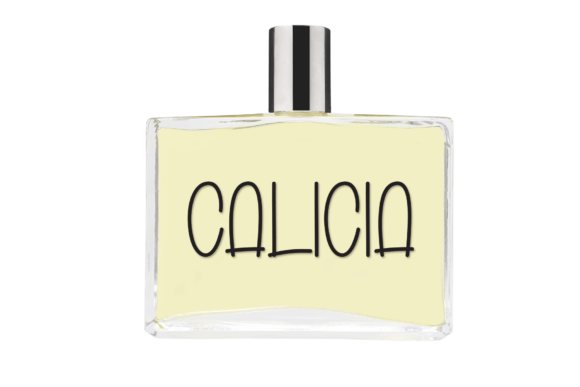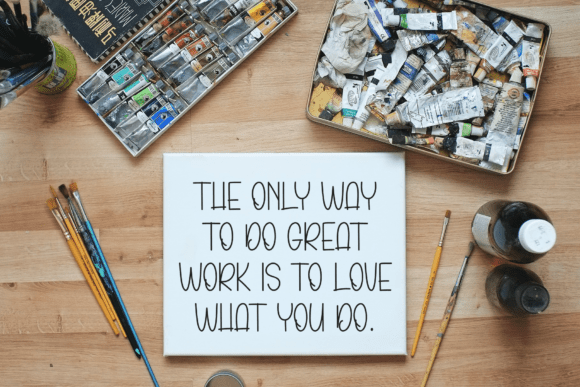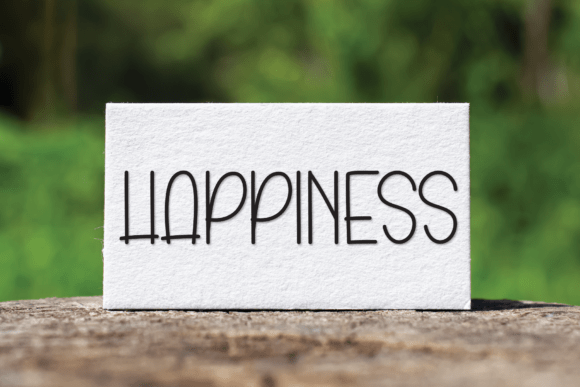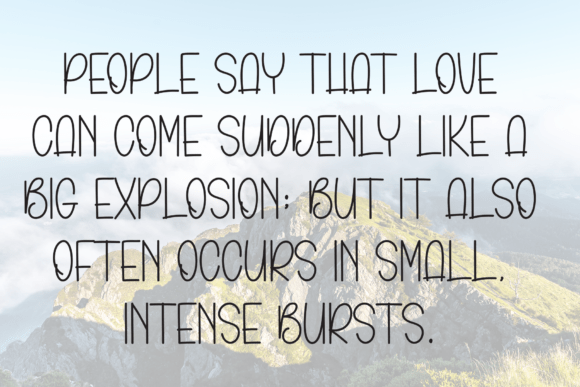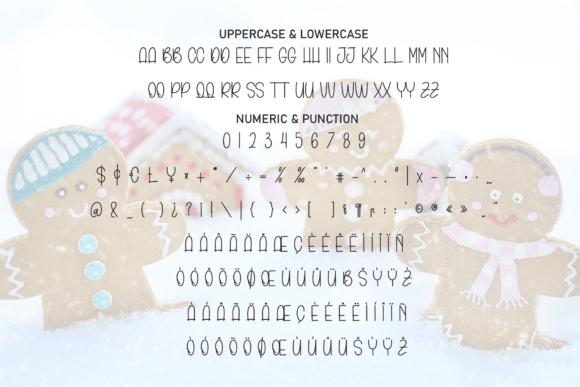
Gingger Bread Font: A Deliciously Modern Twist on Festive Typography
As the holiday season approaches, designers and crafters are on the lookout for the perfect typography to add a touch of festive cheer to their projects. Look no further than the Gingger Bread font, a charming and whimsical monolinear font that reimagines traditional holiday typography with a clean, modern twist.
A Fresh Take on Classic Holiday Typography
Gingger Bread’s unique personality comes from its slightly irregular, hand-drawn alignment and large, open counters, which evoke the neat yet organic look of icing on a holiday cookie. The typeface features tall, slender letterforms with smooth, rounded character joins and consistent stroke weights, giving it a modern and sophisticated feel.
One of the standout features of Gingger Bread is its monolinear design, which means that the font has a consistent stroke width throughout. This gives the font a sleek and streamlined look that’s perfect for use in a variety of applications, from seasonal bakery branding to winter event invitations.
Perfect for Festive Projects
Gingger Bread is a premier choice for designers and crafters looking to add a touch of festive fun to their projects. Here are just a few ideas for how you can use this delightful font:
- Seasonal bakery branding: Use Gingger Bread to create eye-catching labels, packaging, and marketing materials for your bakery or food business.
- Winter event invitations: Add a touch of festive flair to your wedding invitations, holiday party invites, or New Year’s Eve celebrations.
- Festive social media headers: Stand out on social media with Gingger Bread’s cheerful and eye-catching design.
- Cheerful holiday marketing: Use Gingger Bread to create festive ads, flyers, and brochures that will put your customers in the holiday spirit.
What Makes Gingger Bread So Special?
So what sets Gingger Bread apart from other holiday fonts? Here are just a few features that make it a standout:
- Unique personality: Gingger Bread’s slightly irregular, hand-drawn alignment gives it a charming and whimsical feel that’s perfect for the holiday season.
- Clean and modern design: The font’s monolinear design and smooth, rounded character joins give it a sleek and sophisticated look that’s perfect for modern designs.
- Large, open counters: The font’s large counters make it easy to read, even at small sizes.
- Consistent stroke weights: The font’s consistent stroke weights give it a streamlined look that’s perfect for use in a variety of applications.
Tips for Using Gingger Bread
Here are a few tips for getting the most out of Gingger Bread:
- Use it with a holiday color scheme: Pair Gingger Bread with traditional holiday colors like red, green, and gold for a festive look.
- Experiment with sizes: Gingger Bread looks great at a variety of sizes, from large headlines to smaller body text.
- Combine it with other fonts: Try pairing Gingger Bread with other fonts for a unique and eye-catching look.
Gingger Bread is a delightful and charming font that’s perfect for adding a touch of festive fun to your designs. With its unique personality, clean and modern design, and versatility, it’s a premier choice for designers and crafters looking to create festive and eye-catching projects. So why wait? Try Gingger Bread today and add a touch of holiday cheer to your designs!